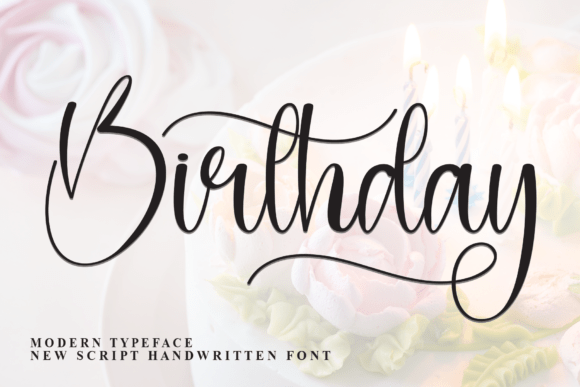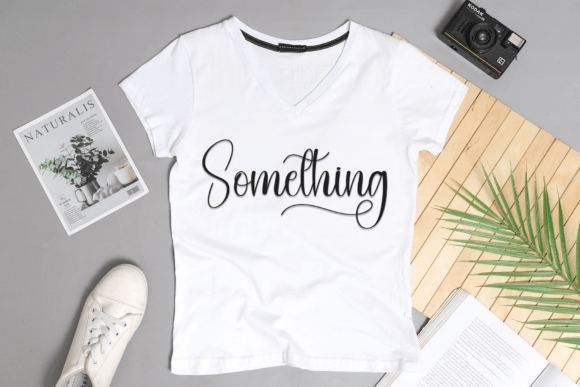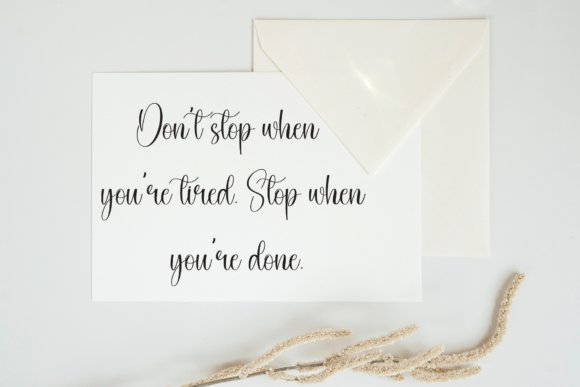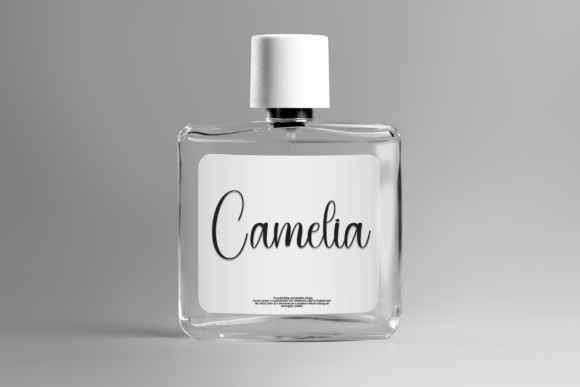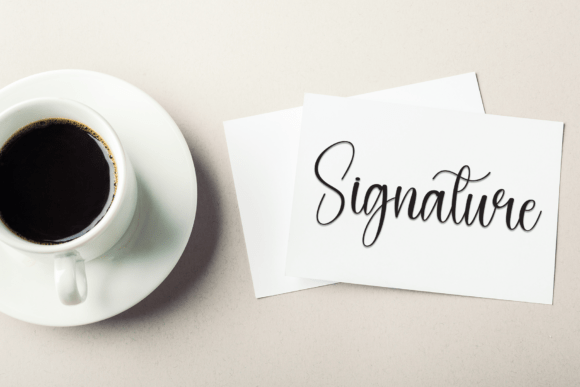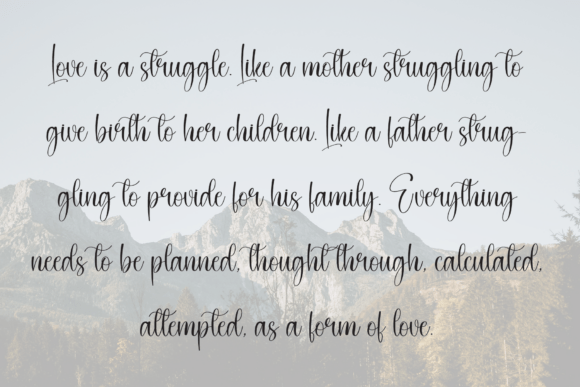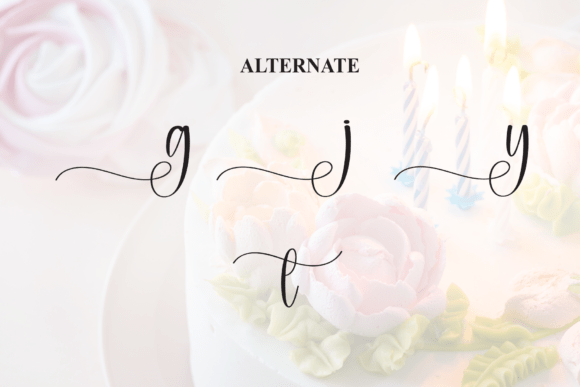
The Magic of Birthdays: Unveiling the Birthday Font
Remember that moment when you’re planning a surprise birthday party for a loved one, and you stumble upon the perfect font to match the occasion? The excitement, the creativity, and the joy of bringing it all together – it’s a feeling like no other. As designers, we know that the right font can make all the difference in elevating our ideas and turning them into stunning works of art.
Enter the Birthday Font, a beautiful script font designed to add a touch of elegance to any creative project. Whether you’re crafting Instagram posts, designing invitations, or creating calligraphy scripts for DIY projects, this font is sure to turn your ideas into a true masterpiece. For designers, the Birthday Font is a valuable asset, offering a unique and versatile tool to express themselves and bring their visions to life.
Birthday Font Key Features
- Unique Characteristics: The font features a playful, cursive design with decorative flourishes and swashes, making it perfect for adding a touch of whimsy to birthday-themed designs.
Birthday Font Review
I recently had the chance to experiment with the Birthday Font, and here’s my honest take on it.
- The font is perfect for creating a celebratory atmosphere. Its playful, cursive design is sure to make any birthday-themed project stand out.
- The font is highly customizable, allowing users to adjust the color, size, and spacing to suit their needs.
- The font includes a wide range of characters, including numbers, punctuation, and special symbols, making it versatile for various applications.
- The font may not be suitable for formal or professional projects, as its playful design may come across as too casual.
- The font is not optimized for smaller font sizes, which can lead to readability issues at smaller scales.
- The font’s weight and style options are limited, which may not provide enough flexibility for users who need more nuanced control.
Overall, the Birthday Font is a great choice for projects that require a fun and celebratory tone. While it has some limitations, its versatility and customizability make it a solid option for designers and creators looking to add a touch of personality to their work.
Some popular use cases for the Birthday Font include:
- Birthday invitations and party decorations.
- Personalized birthday cards and gift tags.
- Custom birthday banners and signs.
For best results, use the Birthday Font in conjunction with bright, colorful graphics and bold typography to create a festive and celebratory atmosphere.